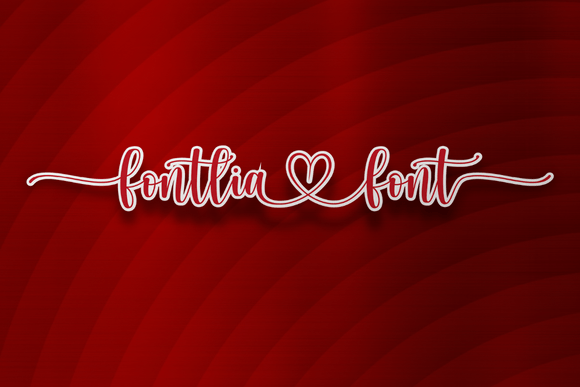
Step into the world of Fontlia, a captivating handwritten script font brimming with charm and elegance. Its heart-shaped titling lends a touch of romance and playfulness to any project, making it the perfect choice for those seeking a unique and expressive font.
With Fontlia, you can effortlessly create stunning wedding invitations, heartfelt Valentine's cards, or memorable quotes that resonate with your audience. Its versatility extends to greeting cards, logos, business cards, and any design that calls for a handwritten flair.
Let Fontlia's graceful lines and enchanting curves add a touch of magic to your designs. Its PUA encoding ensures effortless access to a treasure trove of glyphs and swashes, empowering you to unleash your creativity and craft designs that leave a lasting impression.
Whether you're a seasoned designer or just starting your creative journey, Fontlia will elevate your projects with its enchanting beauty and endless possibilities. Its heart-shaped details will capture the attention of your audience, leaving them mesmerized by the charm and elegance of your creations.
Join the growing community of designers who have fallen in love with Fontlia's captivating allure. Experience the joy of creating designs that exude romance, charm, and a touch of whimsy. With Fontlia, the possibilities are limitless, and your imagination is the only boundary.